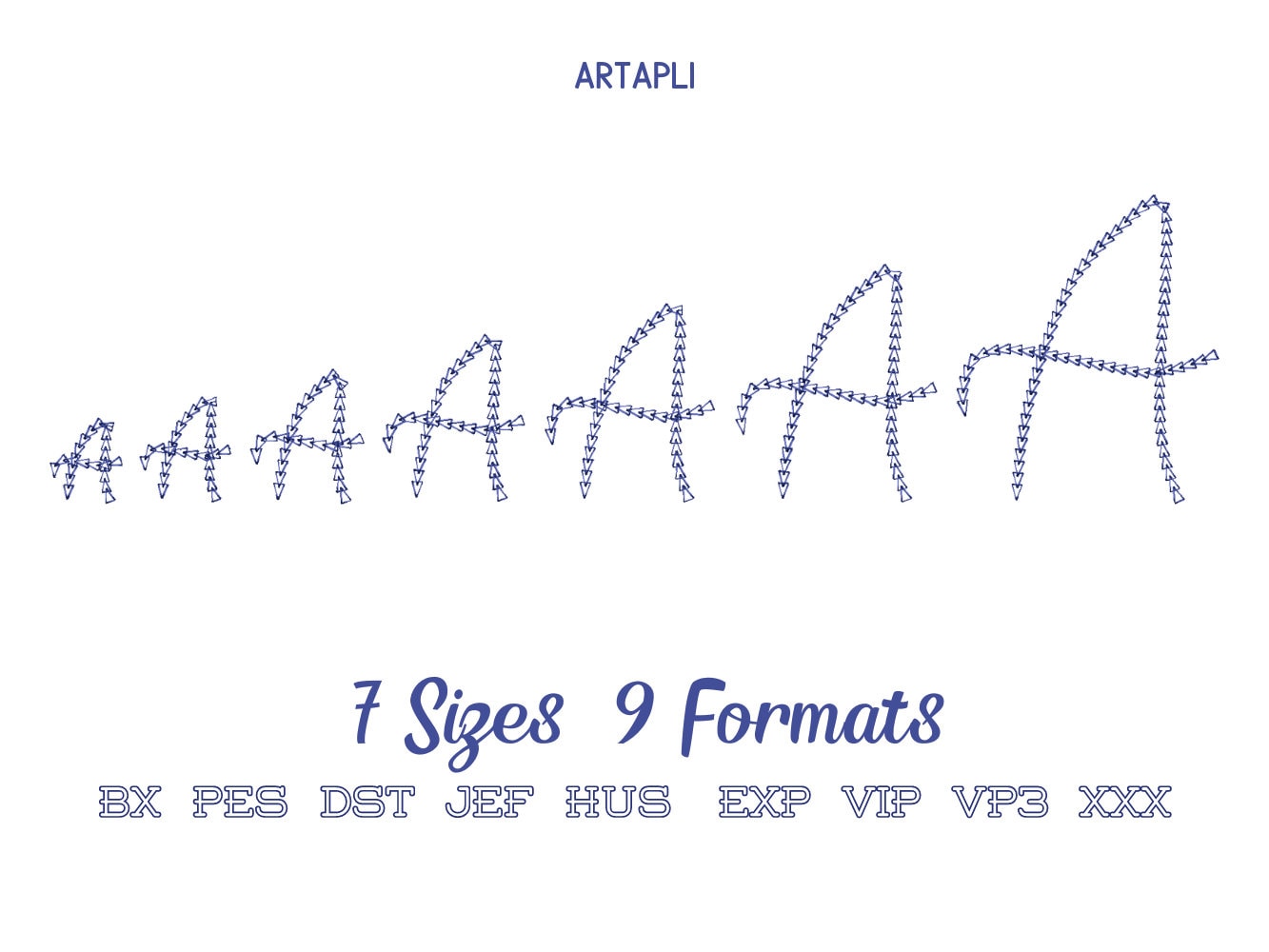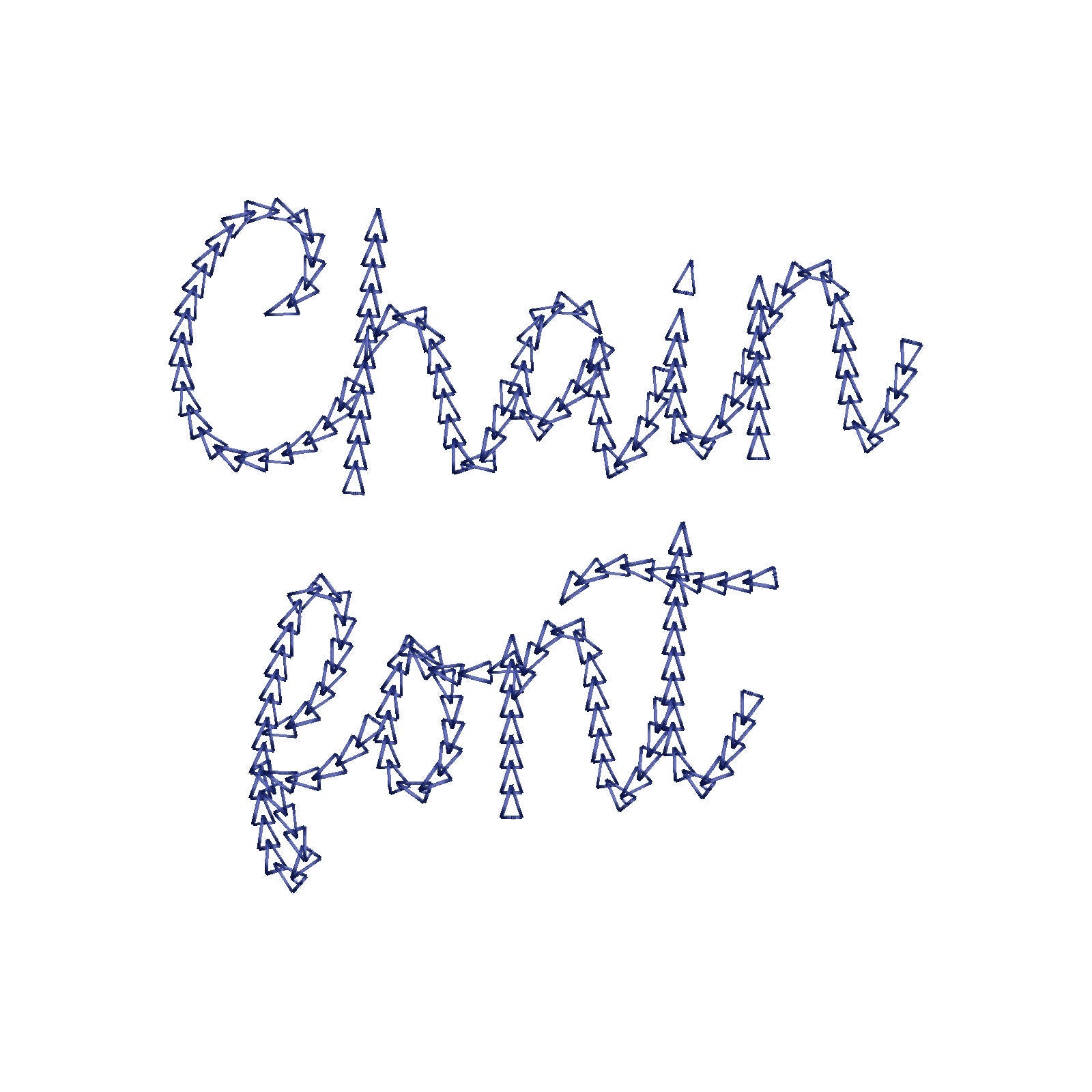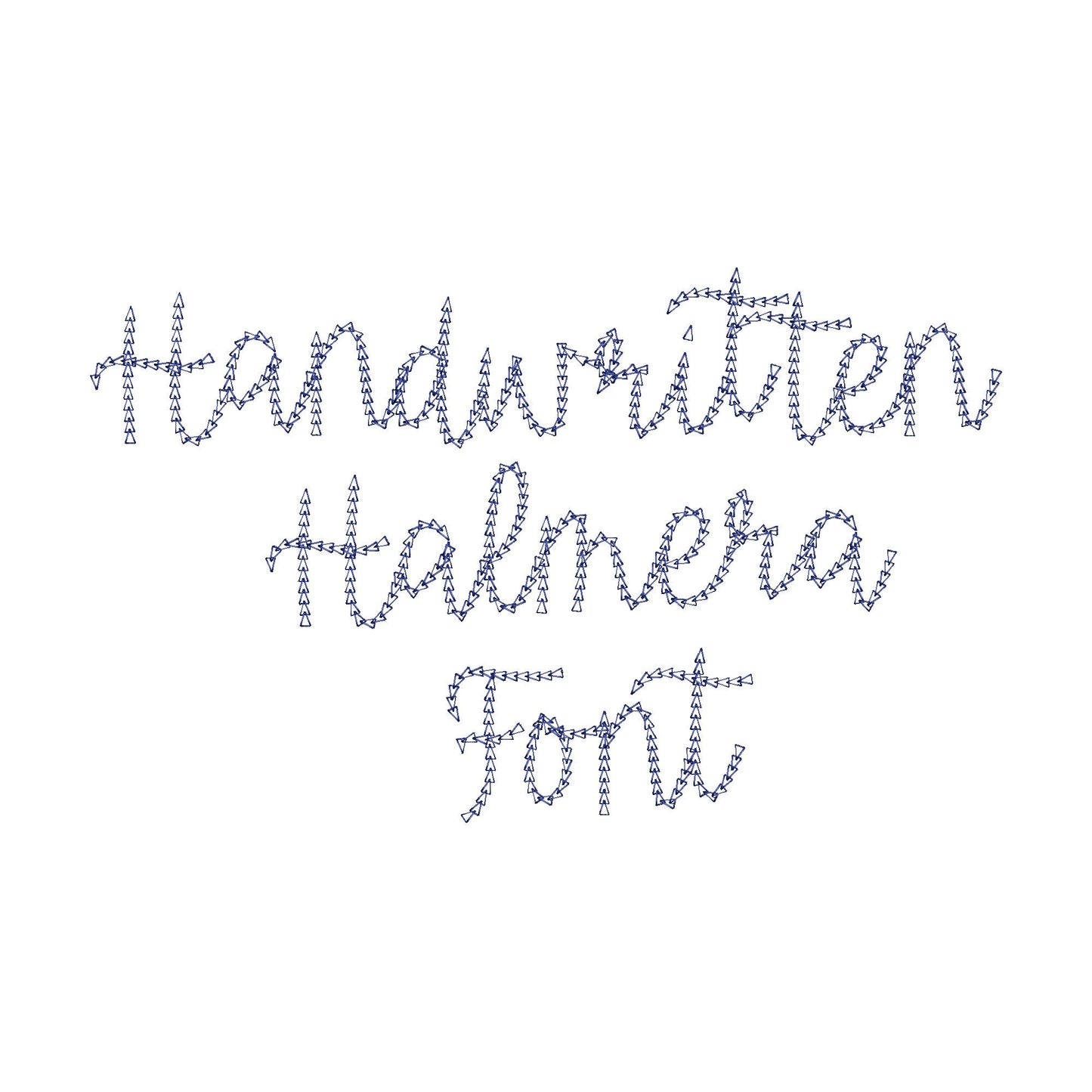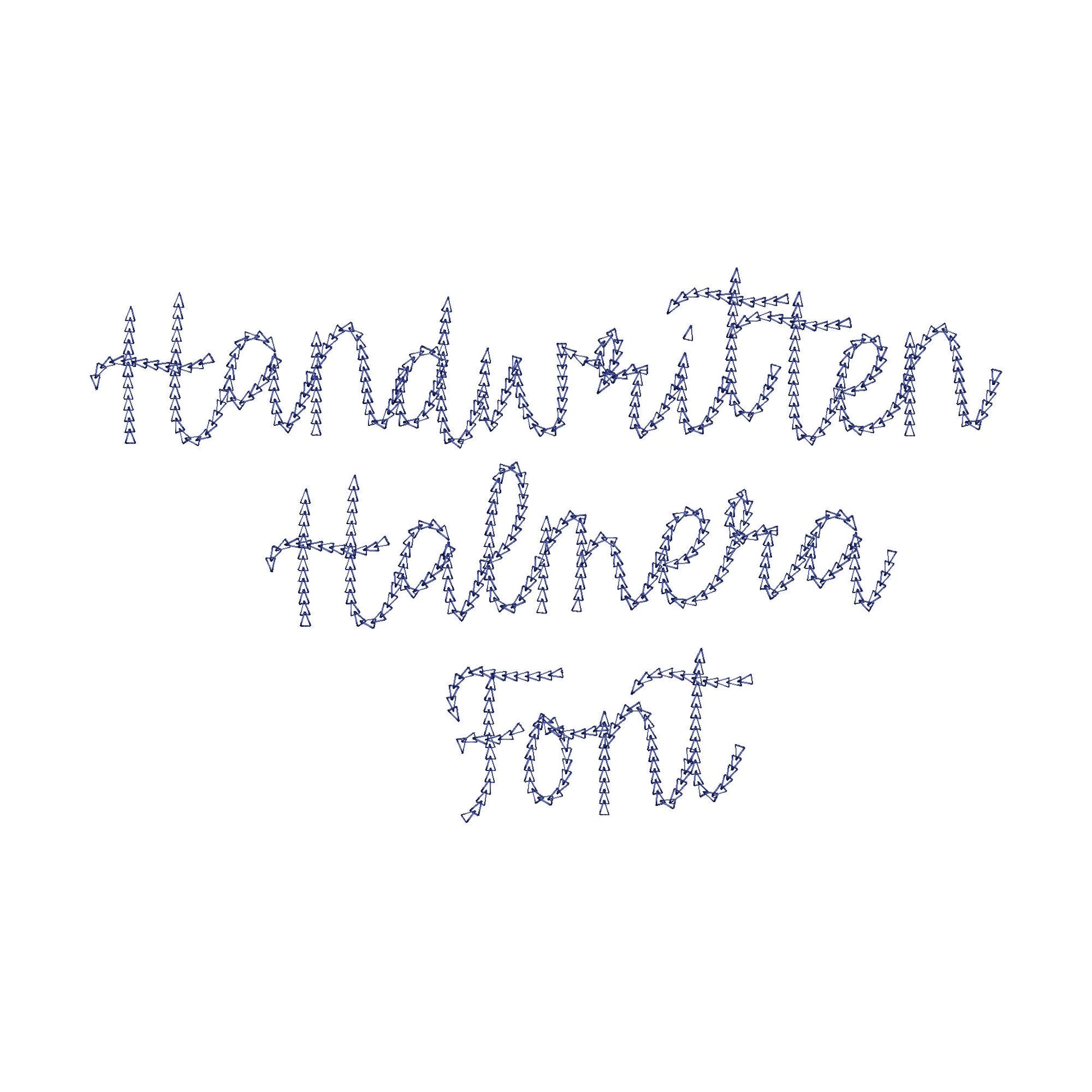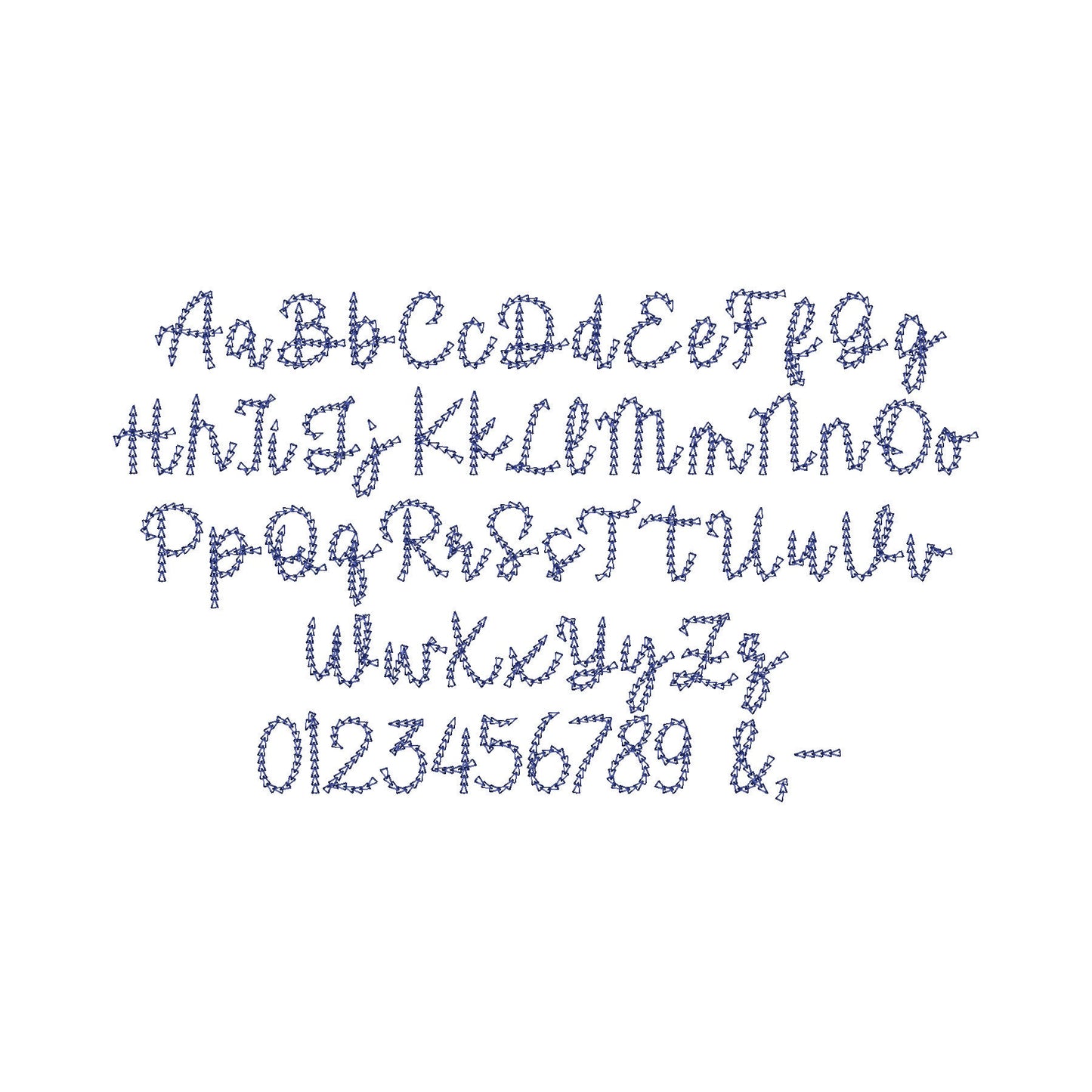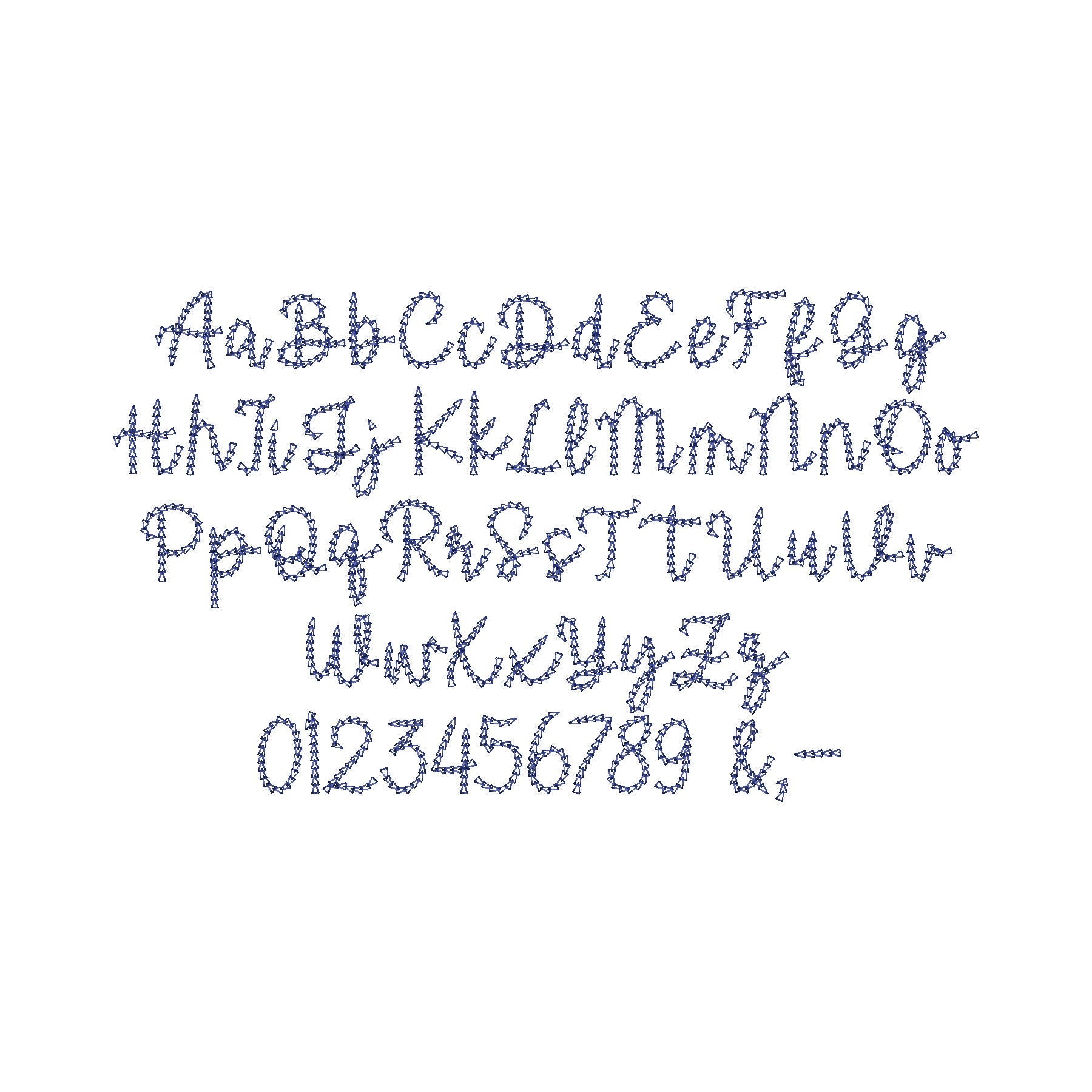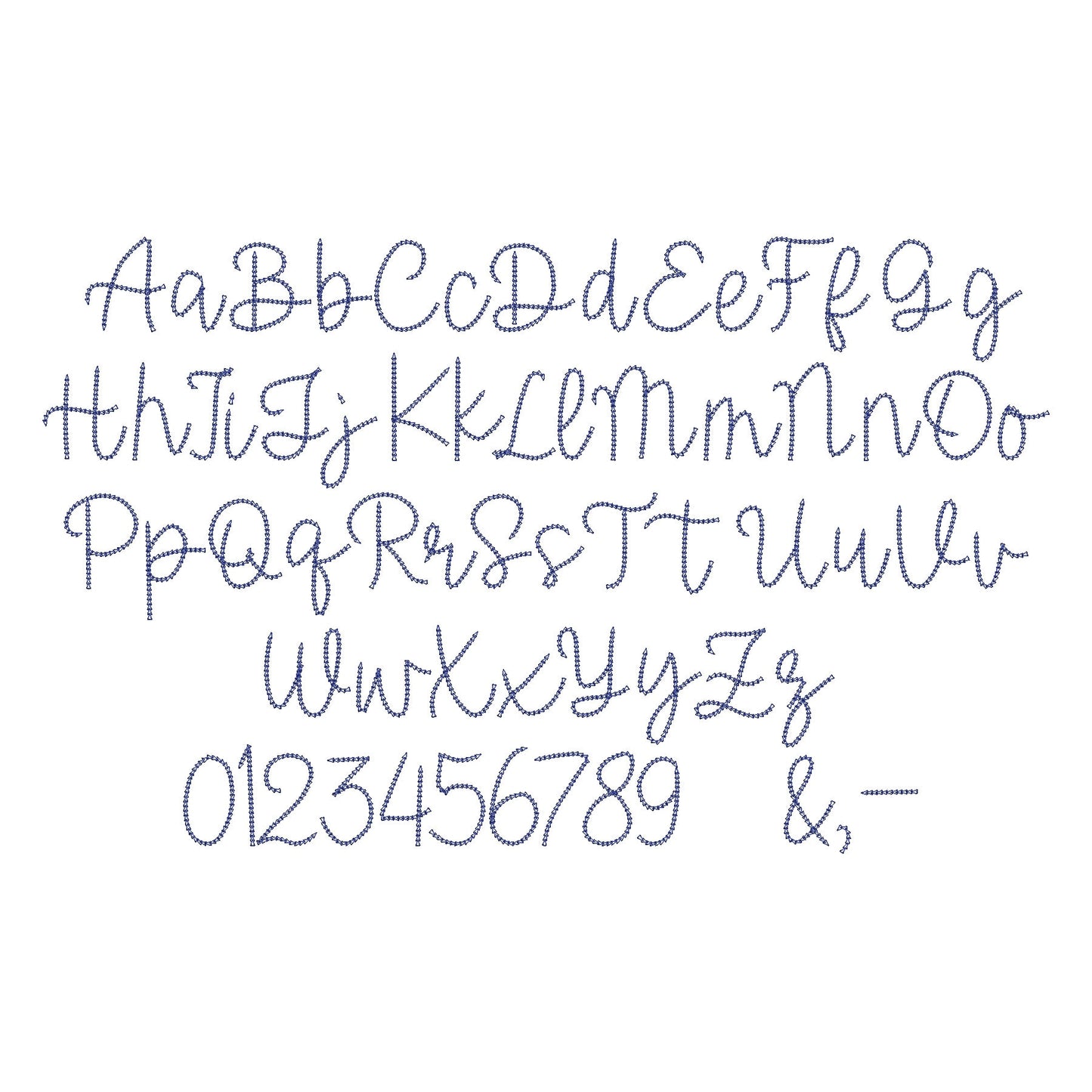
Chain Stitch Font Halmera
Sizes (inches): 1", 1.3", 1.7", 2", 2.5", 3", 4"
The letters come in seven sizes: 1, 1.3, 1.7, 2, 2.5, 3 and 4 inches. A light chain stitch forms linked letters that stitch out fast. Includes uppercase and lowercase letters A to Z, numbers 0 to 9 and punctuation.
- Light chain stitch font
- 7 sizes, 1 to 4 in